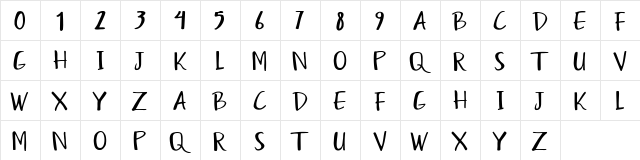
Humayra Regular Font Preview
Humayra Regular
Design Context for Humayra Typeface
Humayra is a composed and adaptable typeface that performs quietly and consistently across a wide range of design contexts.